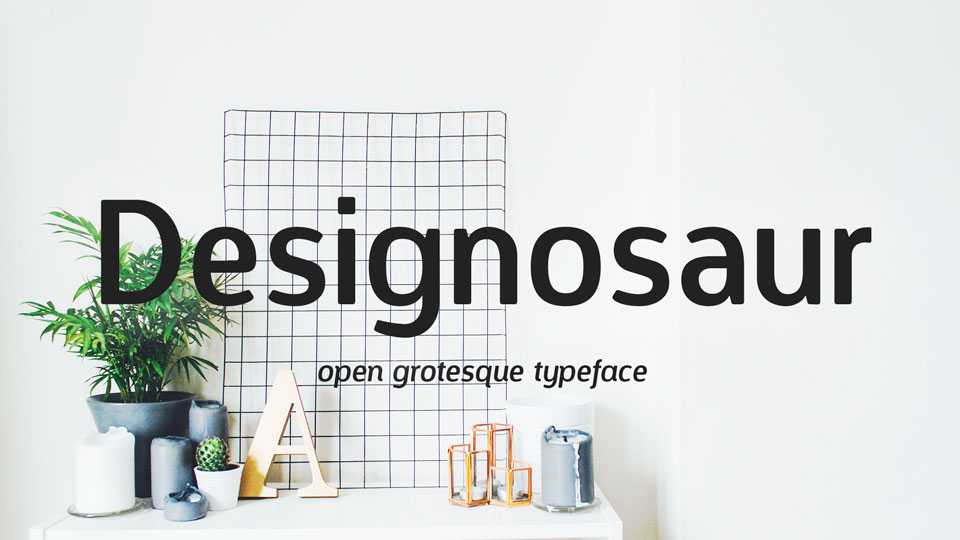
Download Designosaur font family, a clean open grotesque typeface with slim shapes. Suitable for use in advertising, posters, logotypes, short texts etc.
Designer: Sergiy Tkachenko